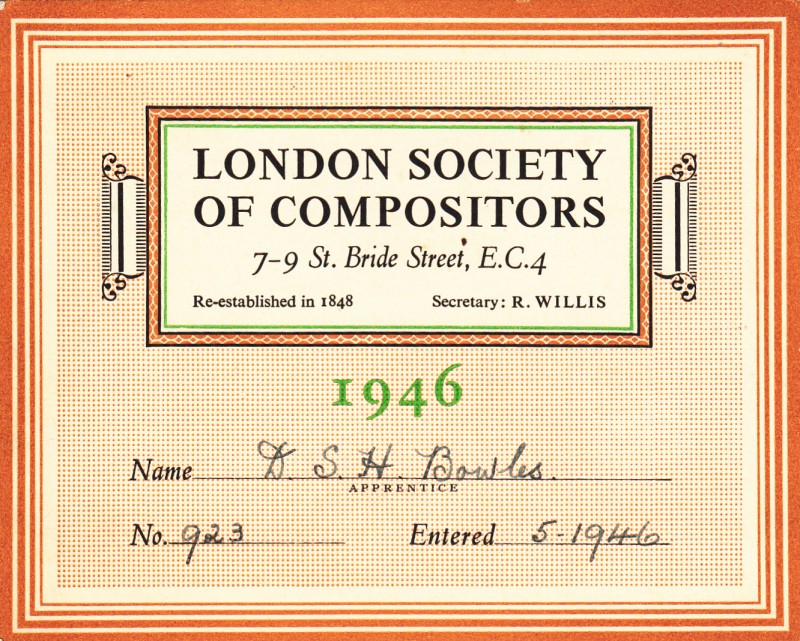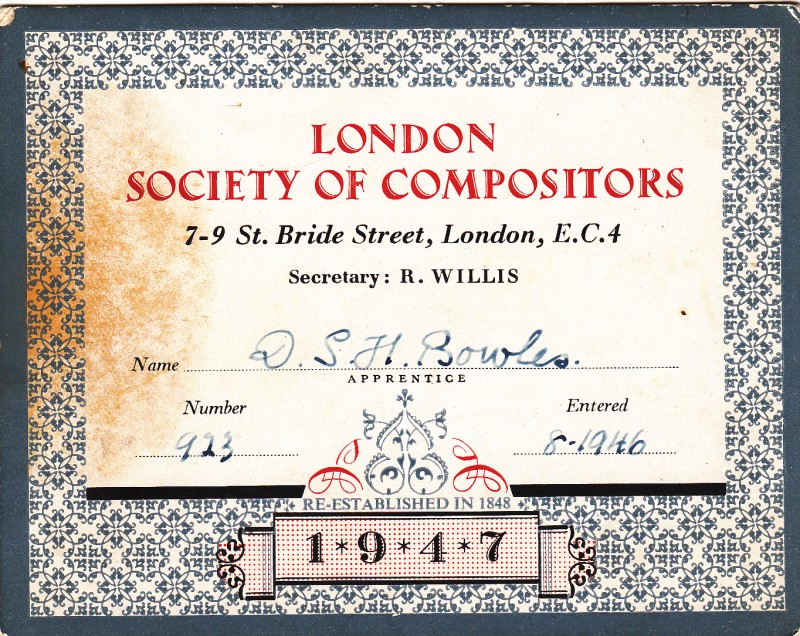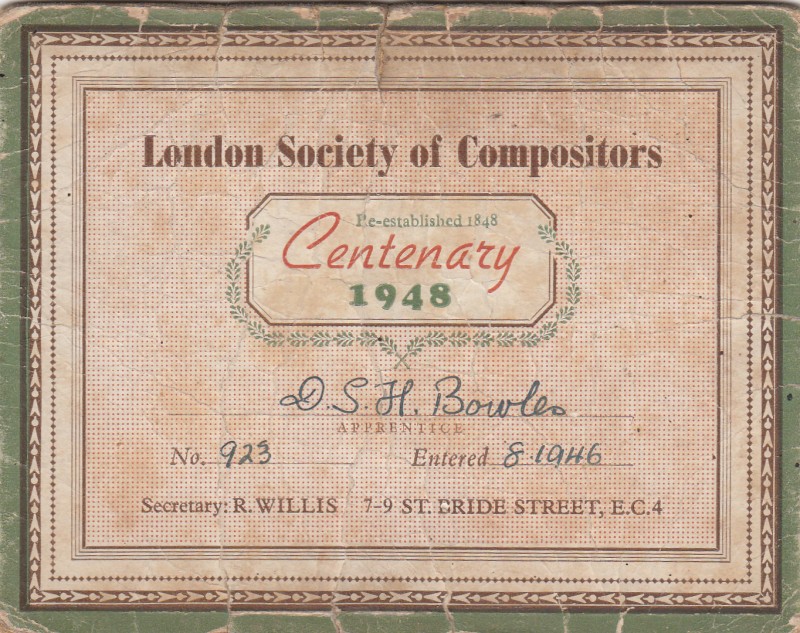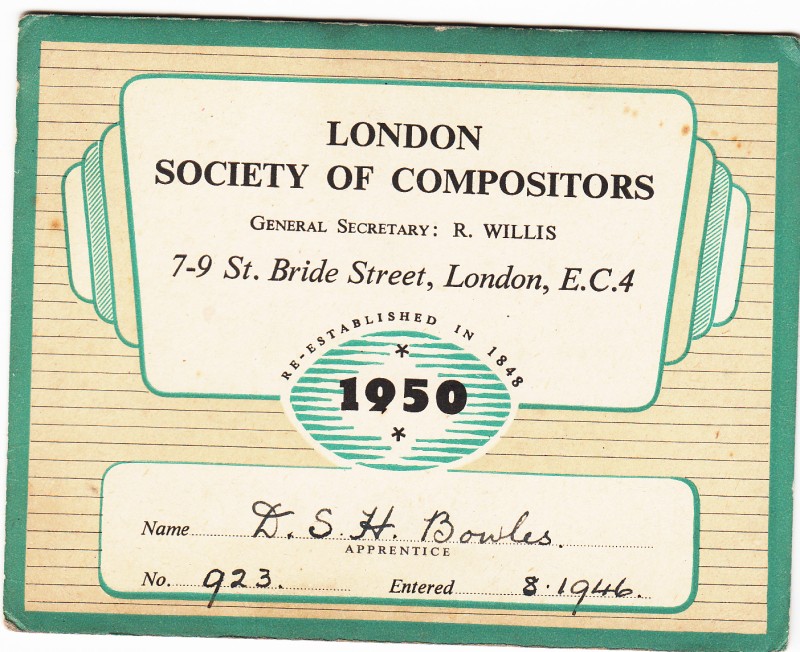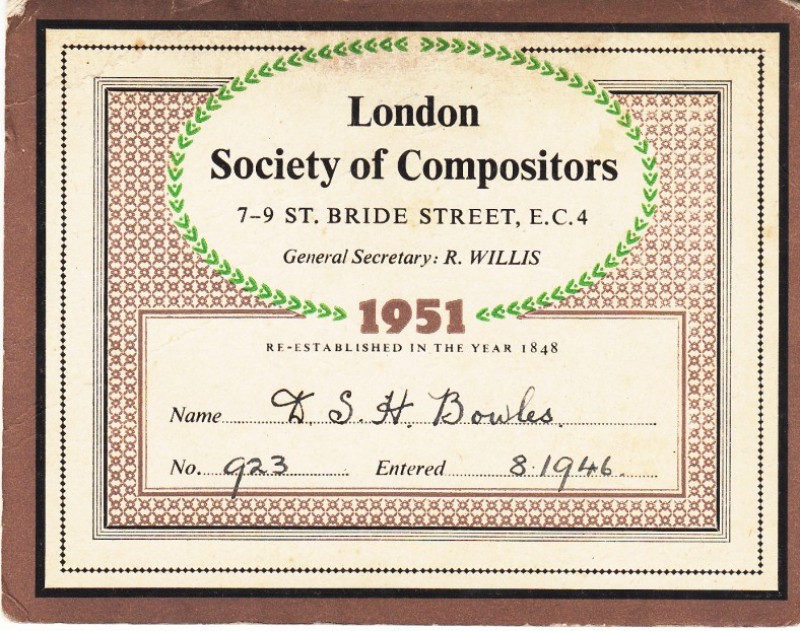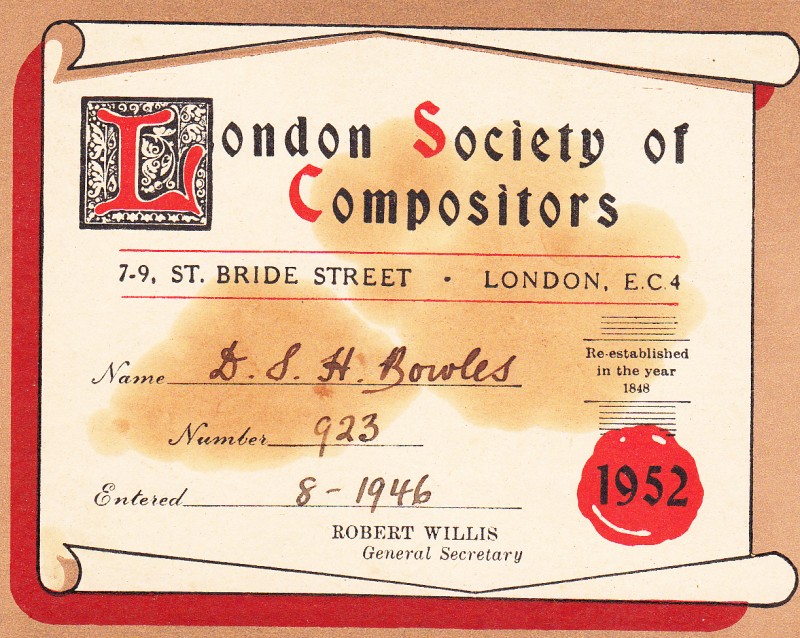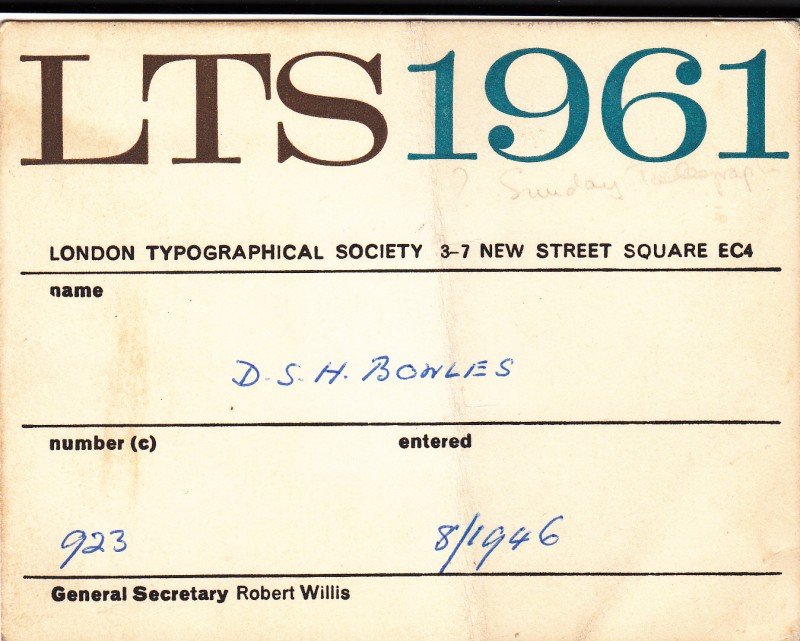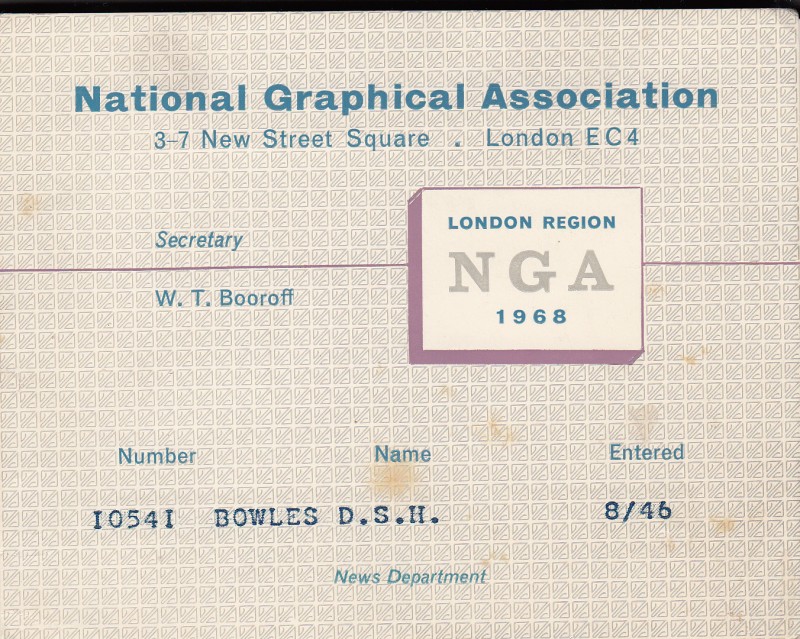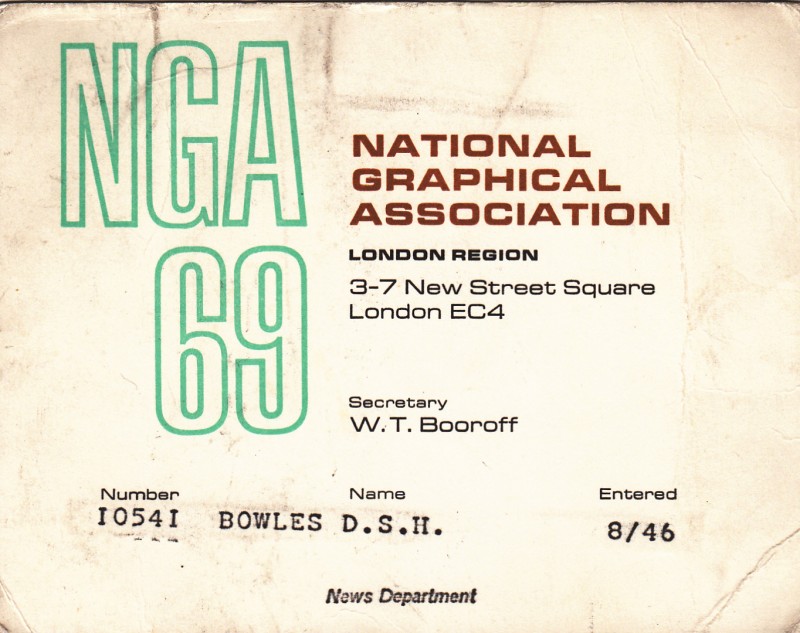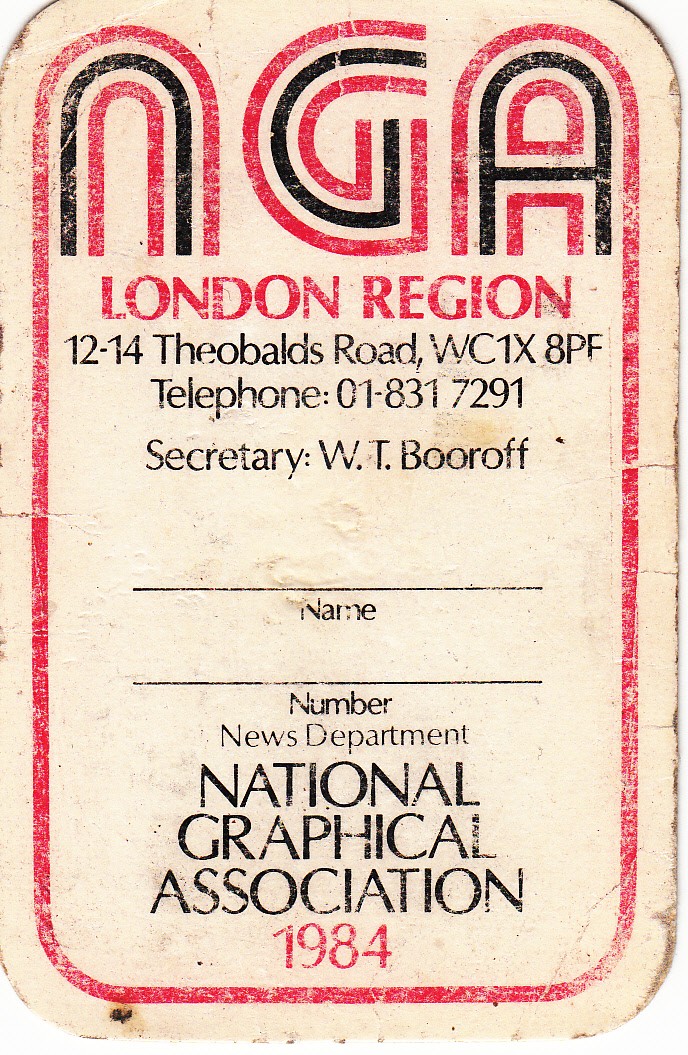
British Print Trade Union Cards 1946-1993
From the late Dave Bowles’ collection of London Fleet Street compositors items comes this great collection of trade union membership cards from 1946 right through to the 1990s.
A unique collection documenting the changing typographical styles through the years.
I noticed that some of the early 1980s ones were looking a little dog-eared, perhaps reflecting the number of meetings, or pickets, Dave was attending during this period when his union was battling for survival.
London Society of Compositors 1946
London Society of Compositors 1947
London Society of Compositors 1948
London Society of Compositors 1949
London society of Compositors 1950
London Society of Compositors 1951
London Society of Compositors 1952
London Society of Compositors 1953 membership card
London Society of Compositors 1954
London Society of Compositors 1955
London Typographical Society 1956
London Typographical Society 1957
London Society of Compositors 1958 membership card
London Typographical Society 1959
London Typographical Society 1960
London Typographical Society 1961
London Typographical Society 1962
London Society of Compositors 1963 membership card
London Society of Compositors 1964 membership card
London Society of Compositors 1965 membership card
London Society of Compositors 1966 membership card
National Graphical Association 1968
National graphical Association 1969
National Graphical Association 1971
National Graphical Association 1972
National Graphical Association 1973
National Graphical Association 1976
National Graphical Association 1978
National Graphical Association 1979
National Graphical Association 1981
National Graphical Association 1983
National Graphical Association 1984
National Graphical Association 1985
National graphical Association 1986
National Graphical Association 1987
National Graphical Association 1988
National Graphical Association 1989
1989 Front. A plastic bank card experiment
National Graphical Association 1989
1989 Back
National Graphical Association 1990
National graphical Association 1991
National Graphical Association 1992
National Graphical Association 1993
A card back
Political Section
A rubber stamp on the back of a card indicating membership of the union’s Political Section